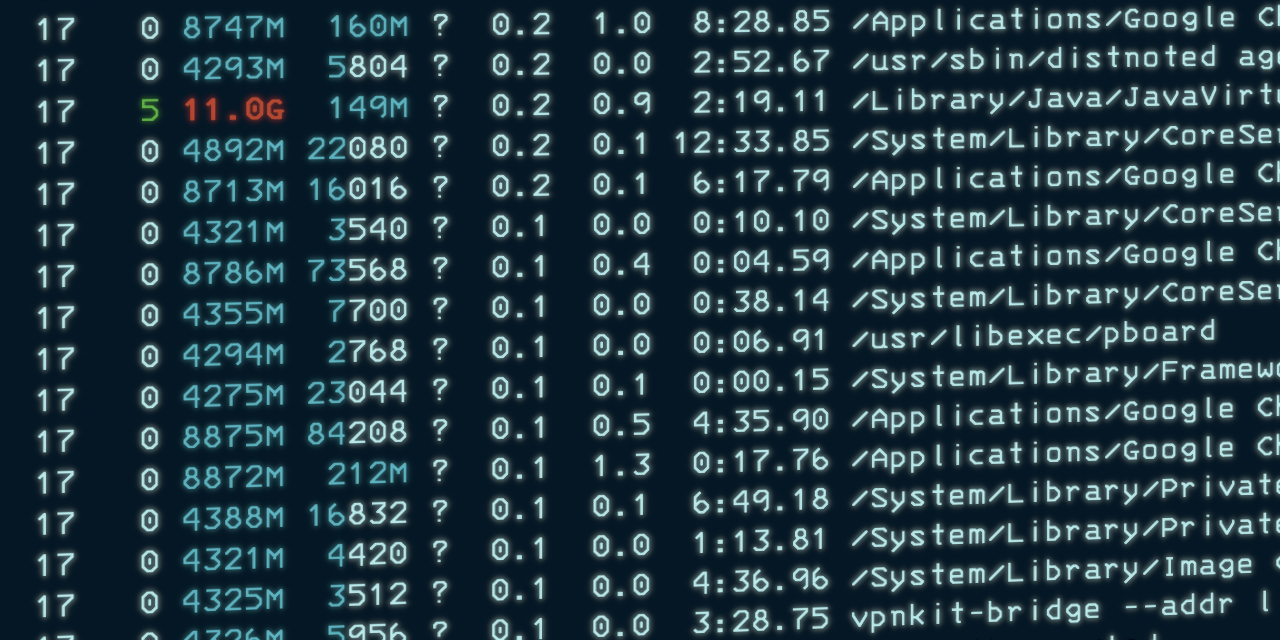
programming-font
be5invis / Iosevka
Iosevka是一个为编程、在终端中使用和编写技术文档而设计的sans-serif + slab-serif,等宽、准比例字体
subframe7536 / maple-font
Maple Mono: Open source monospace font with round corner, ligatures and Nerd-Font icons for IDE and terminal, fine-grained customization options. 带连字和控制台图标的圆角等宽字体,中英文宽度完美2:1,细粒度的自定义选项
JetBrains / JetBrainsMono
JetBrains Mono – the free and open-source typeface for developers
rubjo / victor-mono
#下载器#A free programming font with cursive italics and ligatures. Donations welcome ❤️
the-moonwitch / Cozette
A bitmap programming font optimized for coziness 💜
ToxicFrog / Ligaturizer
Programming Fonts with Ligatures added (& a script to add them to other fonts)
0xType / 0xProto
A programming font focused on source code legibility
rbanffy / 3270font
A 3270 font in a modern format
eigilnikolajsen / commit-mono
Commit Mono is an anonymous and neutral programming typeface.
blobject / agave
succulent monospace programming font
shytikov / pragmasevka
Pragmata Pro doppelgänger made of Iosevka SS08
qwerasd205 / AnnotationMono
A lovingly crafted handwriting-style monospace font.
jesusmgg / comic-shanns-mono
a classy font for programming
Iosevka-Mayukai / Iosevka-Mayukai
Font based on Iosevka Custom Build, with combination from Iosevka SS04 Menlo, SS07 Monaco, SS09 Source Code Pro, SS12 Ubuntu Mono, SS14 Jetbrains Mono, Hack Style, and some Nerd Font Patching.
BourgeoisBear / DaddyTimeMono
A Monospaced Font
stgiga / UnifontEX
An extended fork of GNU Unifont with a focus on high compatibility.
y-kim / monoplex
IBM Plex Mono에 IBM Plex Sans KR을 더하여 코딩창과 터미널에서 로마자에 어울리는 한글을 보여주는 글꼴입니다.